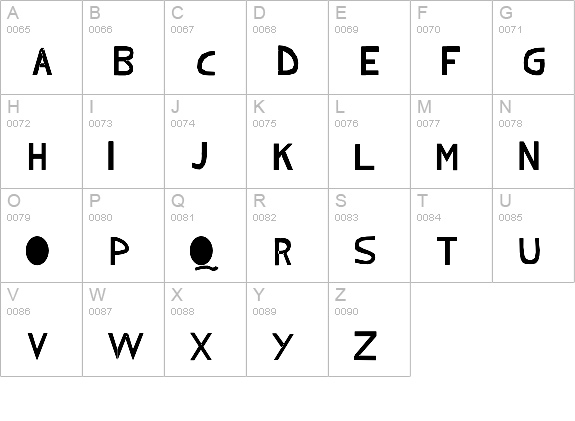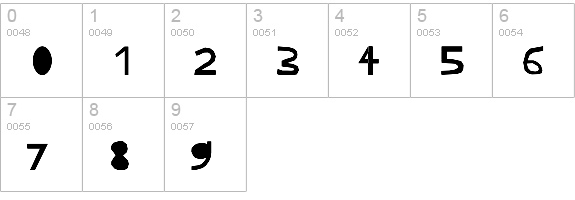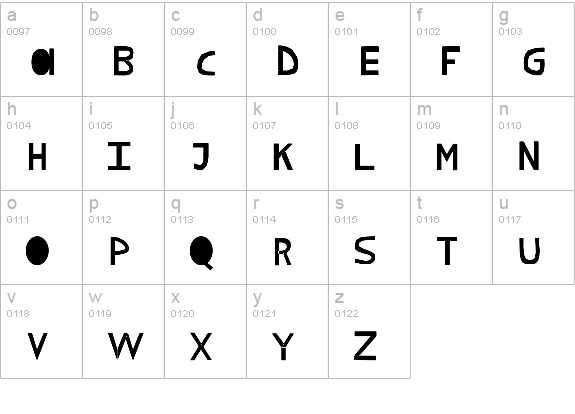
Kilimanjaro Four Font Details
Kilimanjaro Four is a captivating and versatile font that will elevate any design project to new heights. With its unique and modern design, this font is perfect for both digital and print applications, from branding and logo design to website headers and packaging. What sets Kilimanjaro Four apart is not only its stunning aesthetic, but also its accessibility. This font is freely available to download at FontsMarket.com, allowing designers and creatives to effortlessly incorporate it into their work without any financial restrictions. Featuring a wide range of characters and ligatures, Kilimanjaro Four offers endless possibilities for customization and personalization. Its bold and clean lines make it easily readable, while its subtle curves and unique details lend a touch of elegance and sophistication. Whether you're aiming for a sleek and minimalist look or a bold and attention-grabbing design, Kilimanjaro Four has got you covered. Its versatility makes it suitable for a wide range of projects, from professional presentations to creative art pieces. In addition to its visual appeal, Kilimanjaro Four is also highly functional. It is compatible with various software and platforms, ensuring seamless integration into any design workflow. Its high-quality resolution guarantees crisp and clear output, whether in digital or print formats. With Kilimanjaro Four, you can unleash your creativity and bring your designs to life. Its free availability at FontsMarket.com makes it a valuable resource for both established designers and aspiring creatives. Download Kilimanjaro Four today and discover the endless possibilities it offers for your next design project.